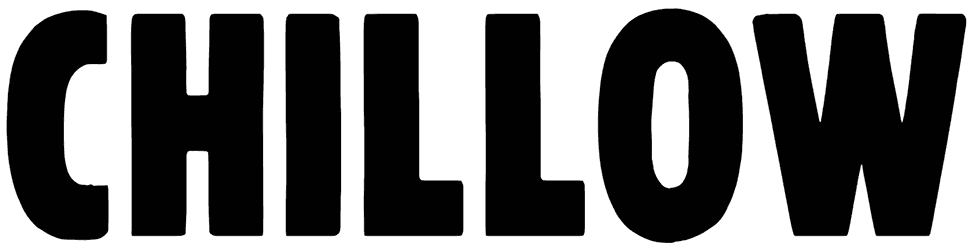
Chillow Font
If you want your designs for media, news, book titles, posters, and other similar projects to stand out and attract more followers and consumers, then you should use a decorative font like Chillow.
Although this sans serif font does not include lowercase letters, its bold and stylish appearance makes it a viable option for creating a transformative design, especially if you are going for a minimalist, professional look. Explore RB to find out more about the unique fonts we provide.